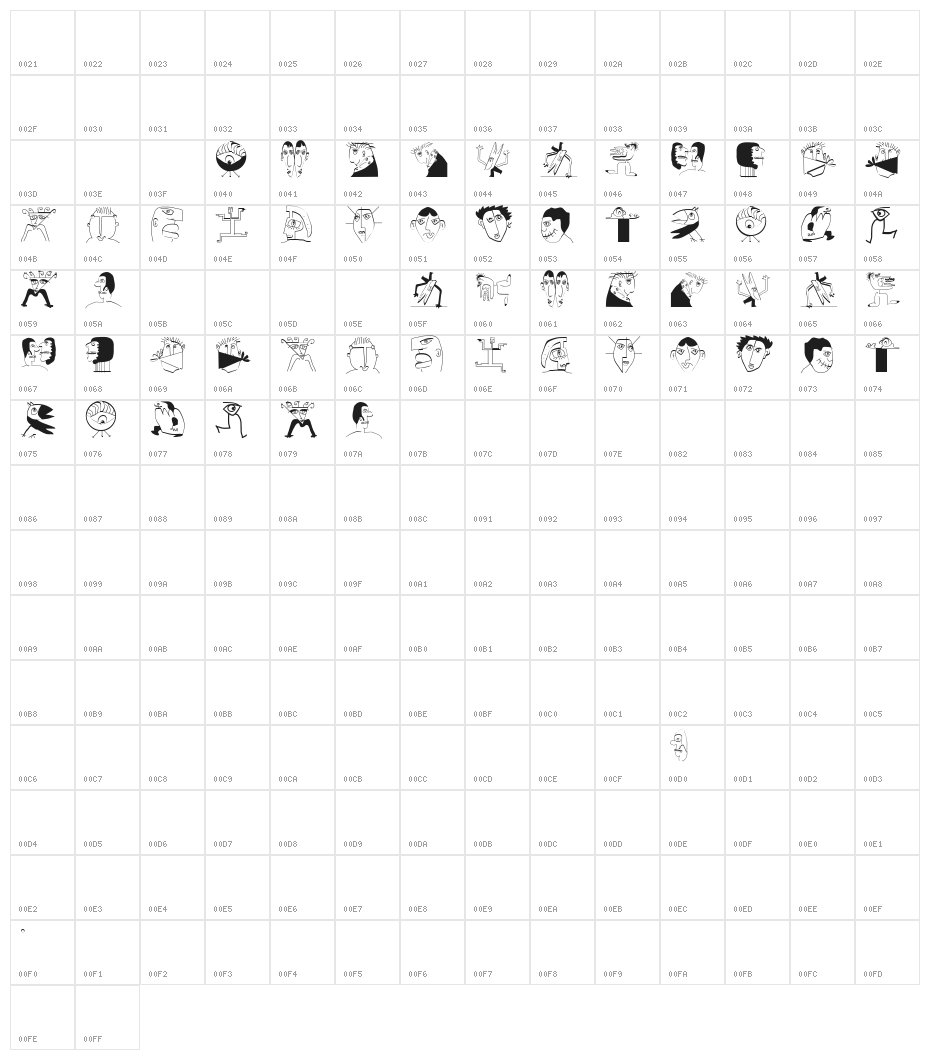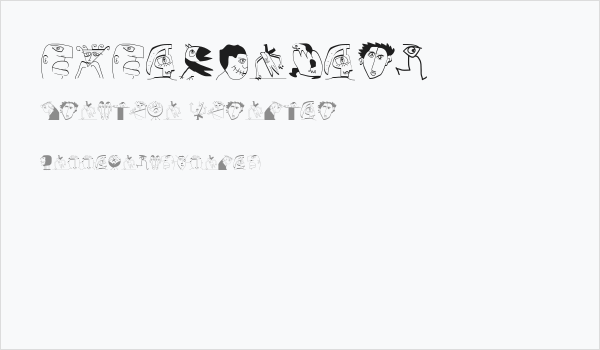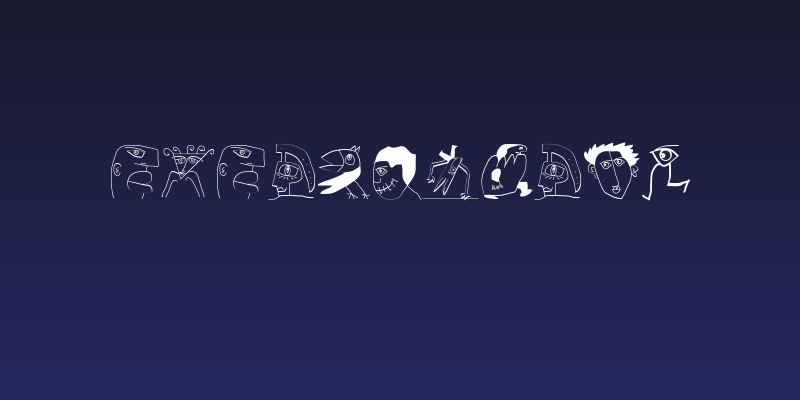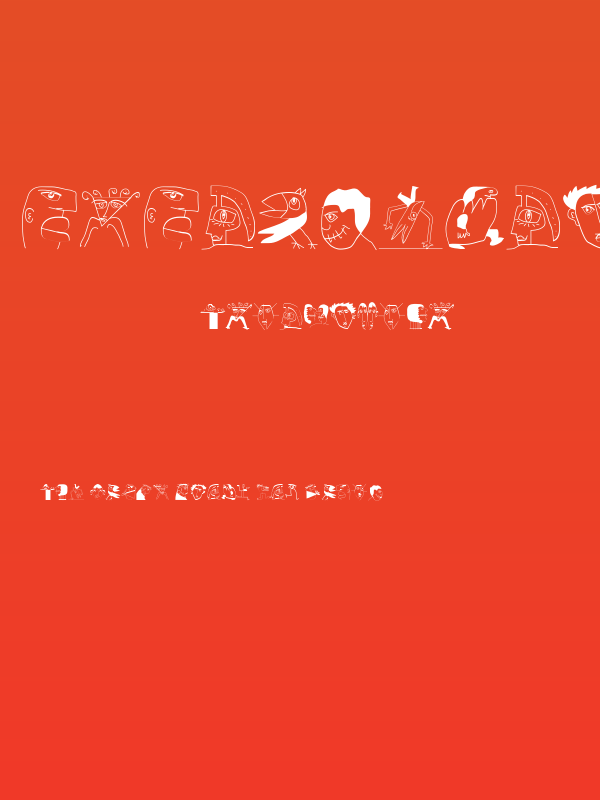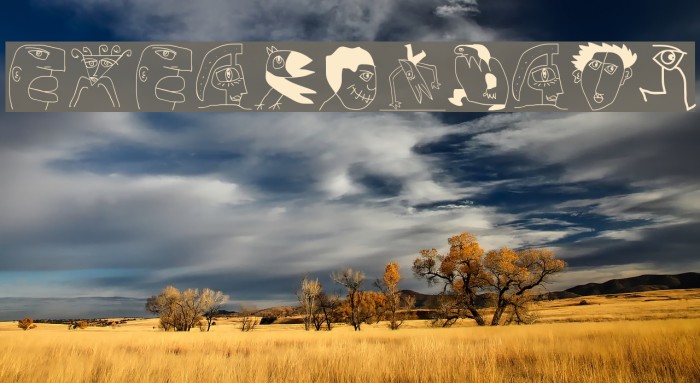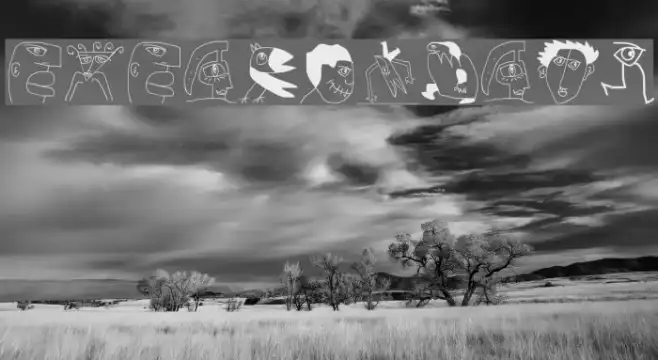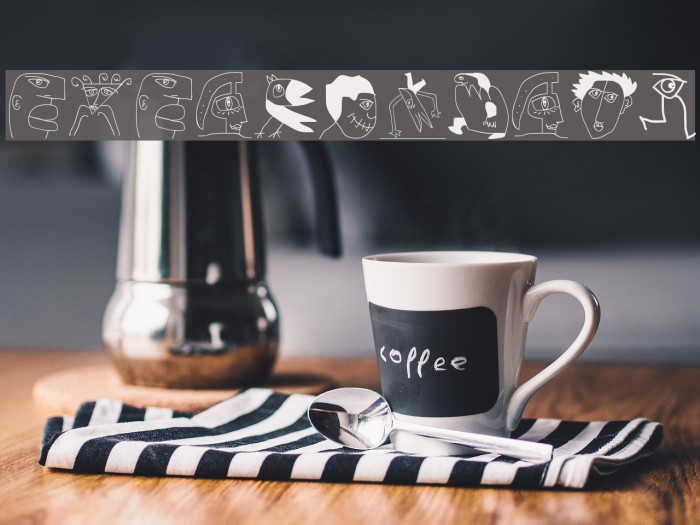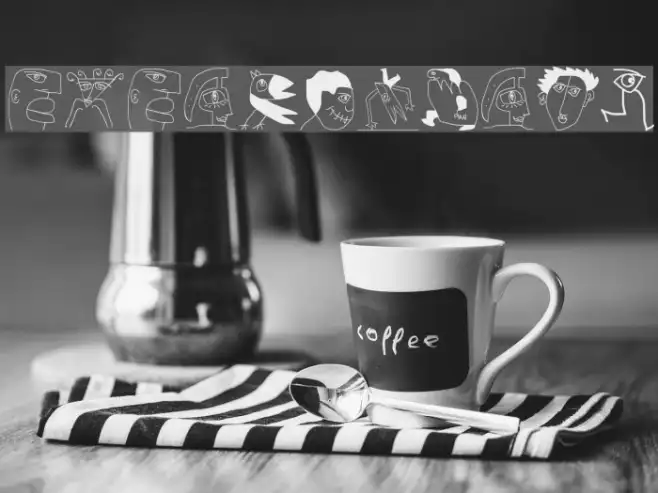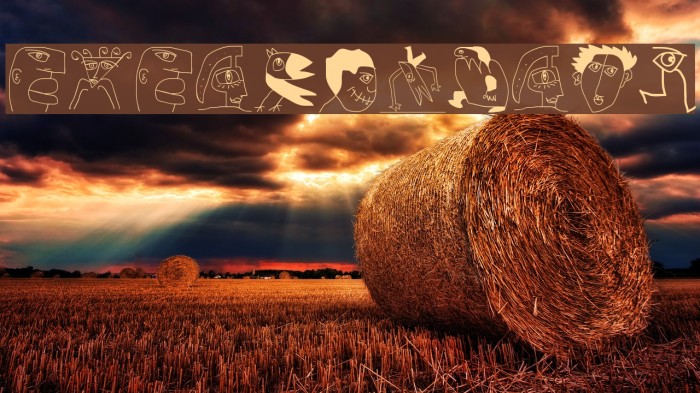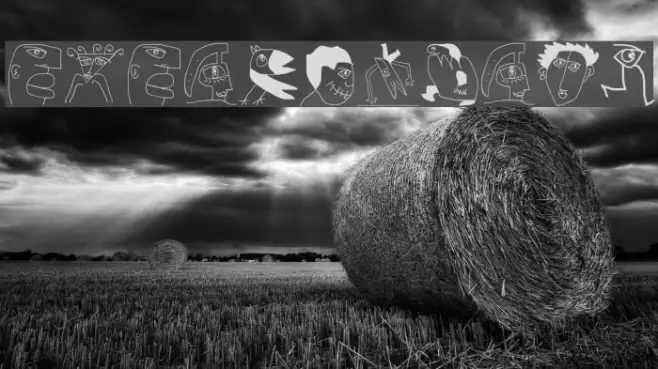
MKMouseworx Font
MKMouseworx Description
This unique and whimsical font features a series of abstract, cartoon-like characters that replace traditional alphanumeric symbols. Each character is creatively designed with exaggerated facial features and playful expressions, making it highly distinctive and artistic. The style is reminiscent of doodles or sketches, with a hand-drawn quality that adds a sense of spontaneity and fun. The characters are bold and visually striking, with a mix of solid black areas and intricate line work. This font is not intended for standard text use but rather for decorative purposes where a quirky and artistic touch is desired.
| Use Case | Logos, Posters, Artistic Designs |
| Proposed Projects | Ideal for creative projects such as children's book illustrations, playful posters, unique branding, or any design requiring a quirky, artistic flair. |